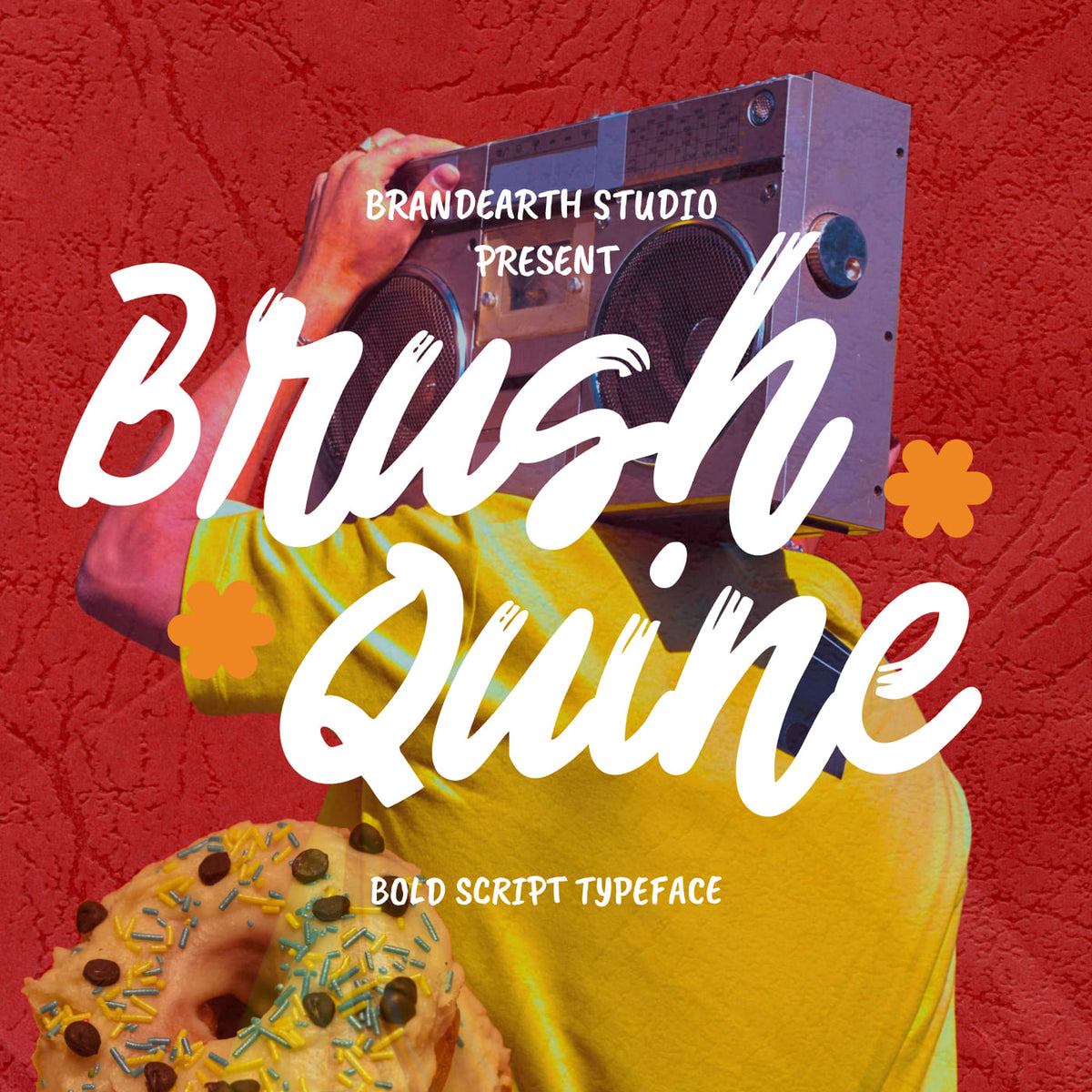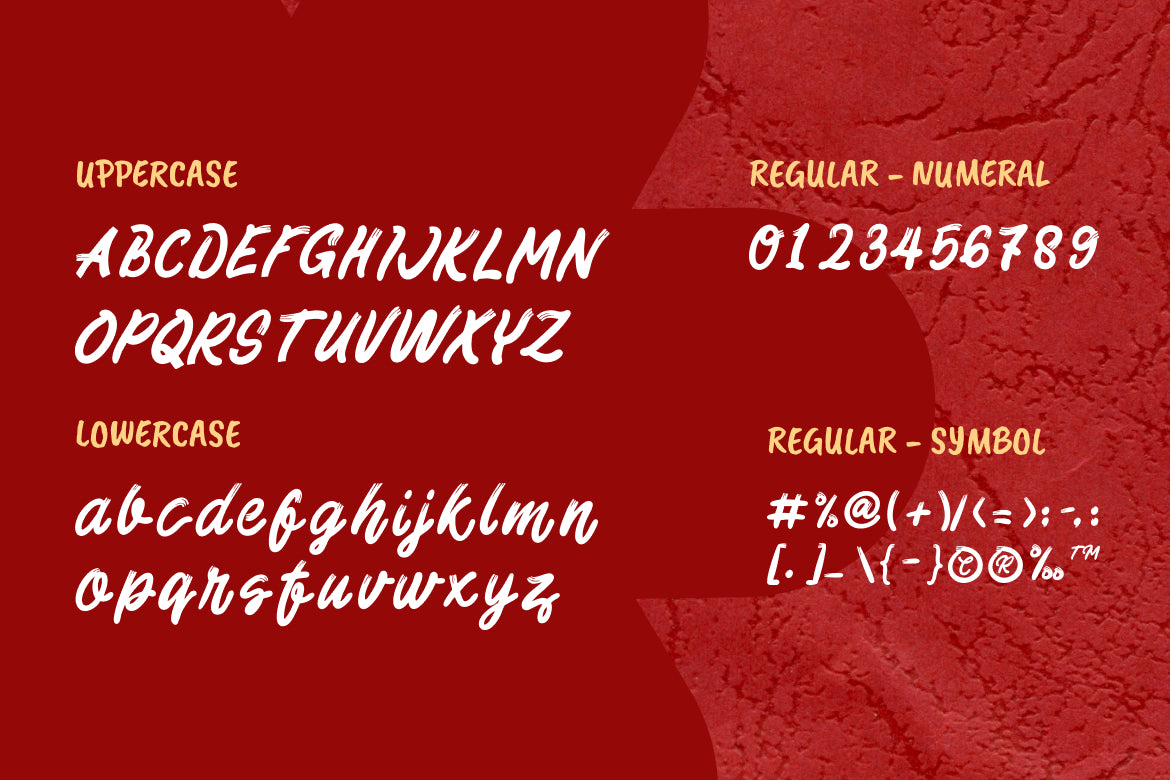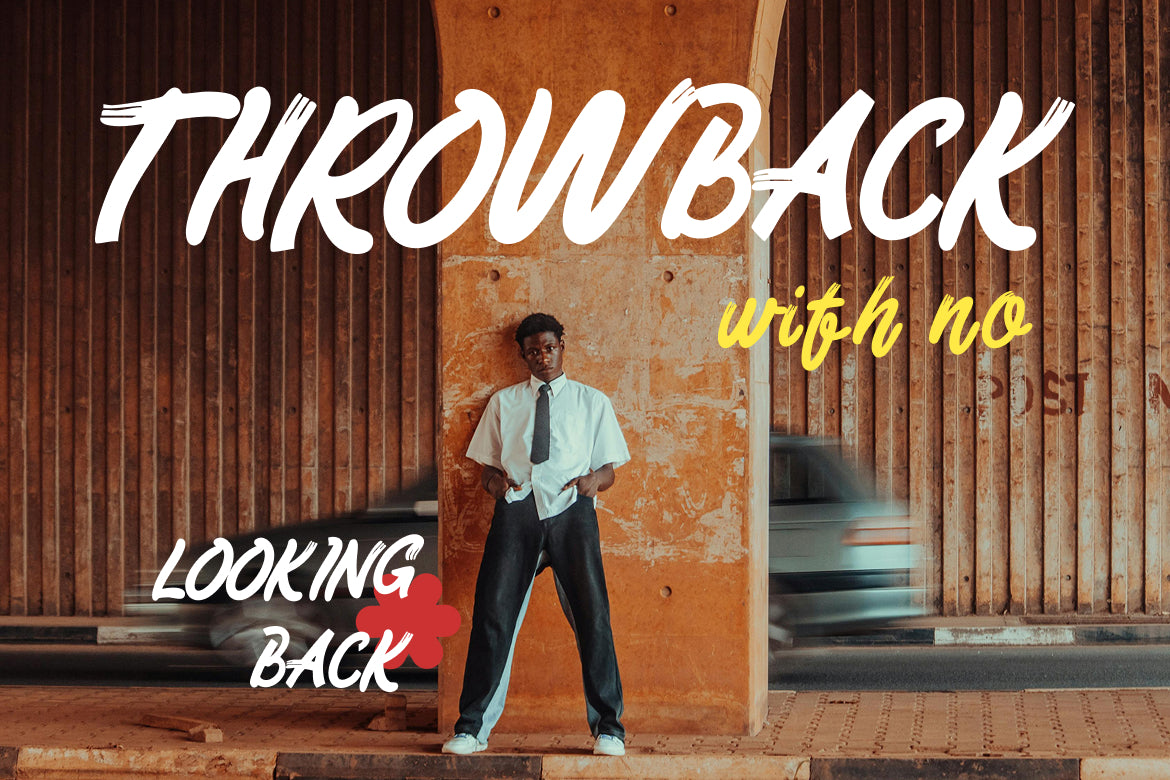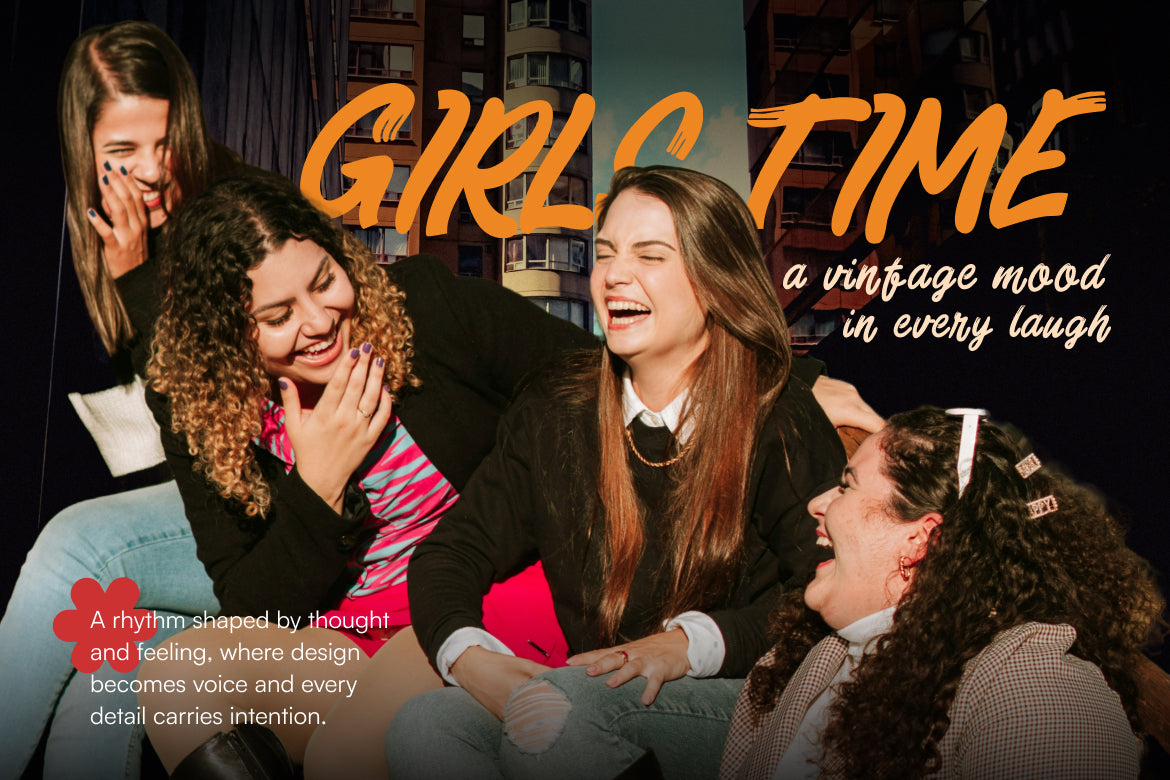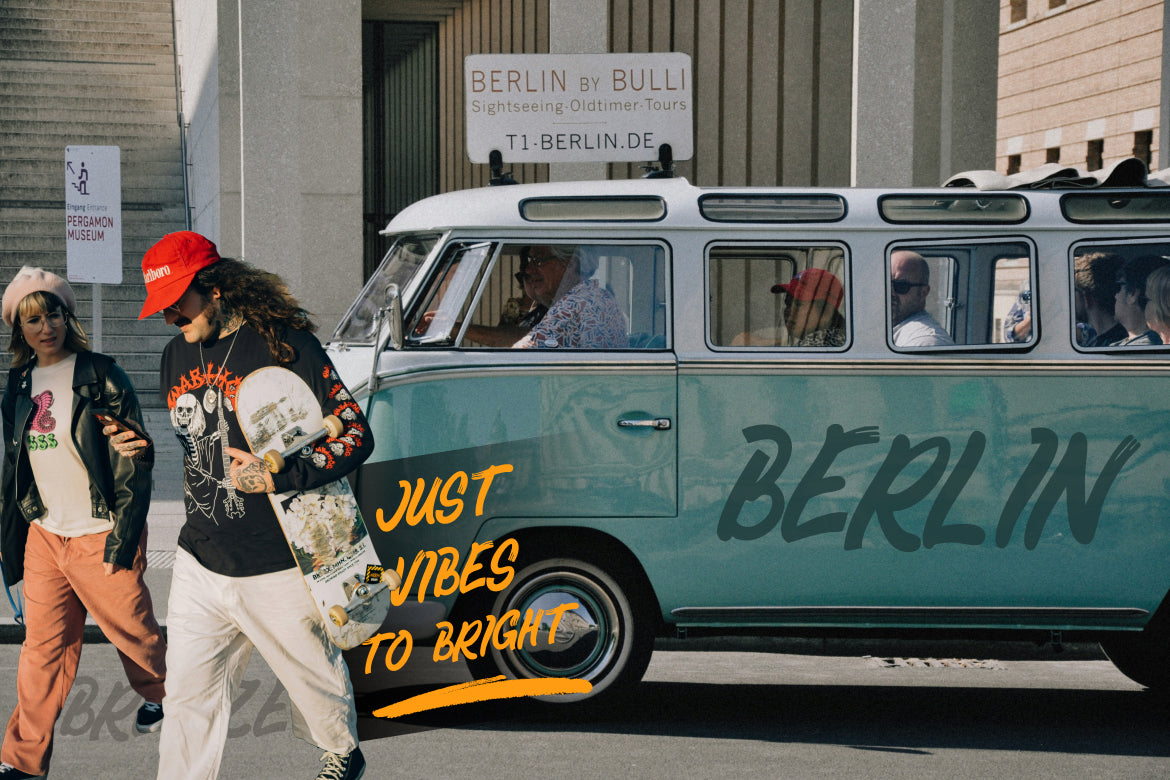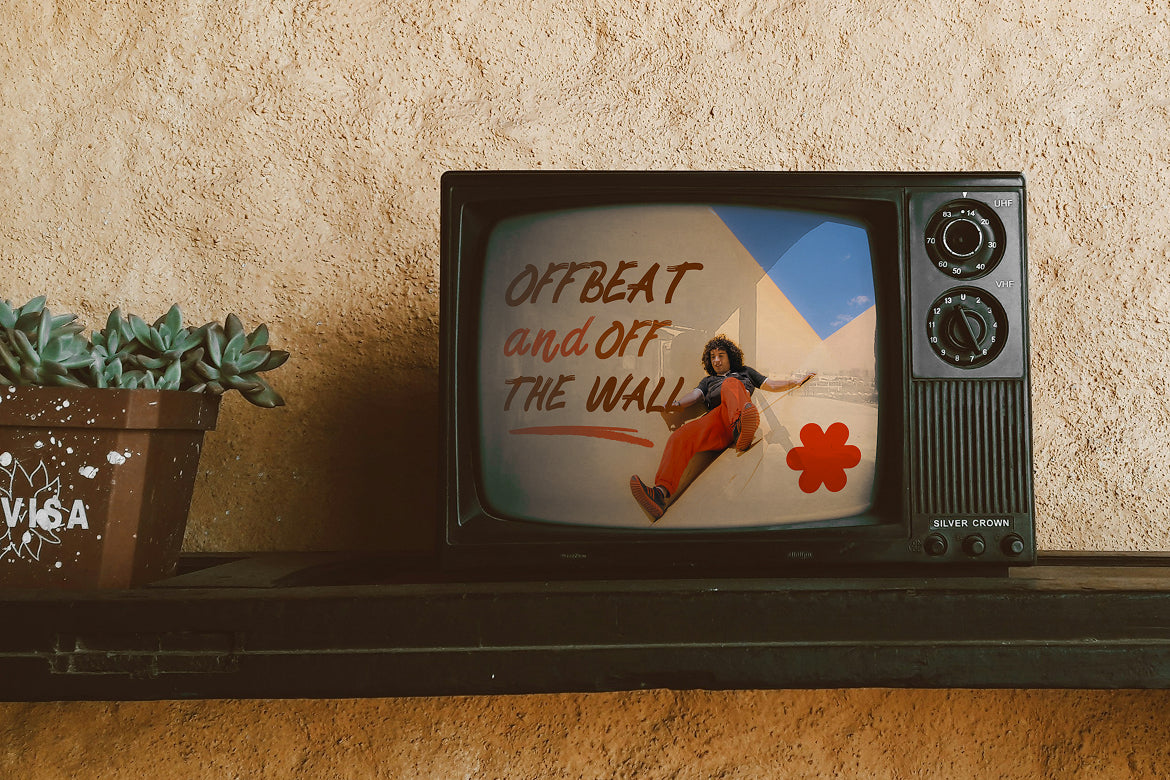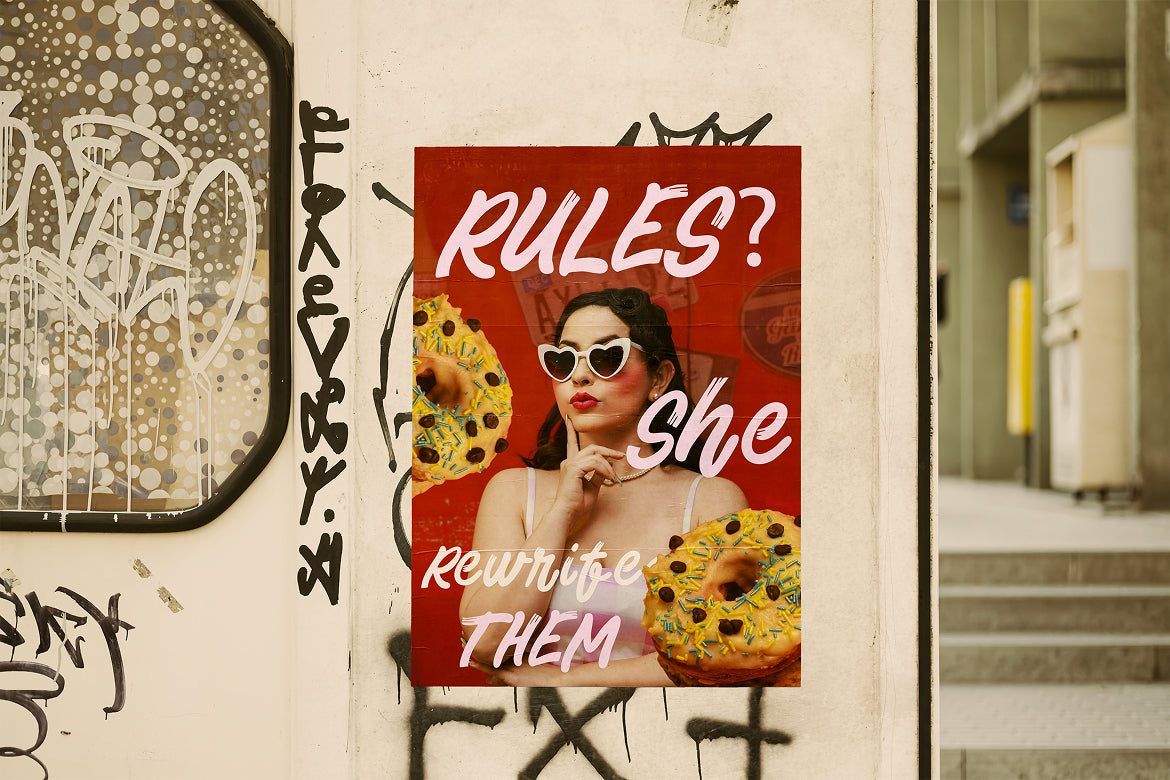
Brush Quine Bold Script Typeface
Brush Quine is a bold handwritten script typeface built around thick, energetic brush strokes and a naturally flowing letter rhythm. Its letterforms combine rounded curves, sweeping connections, tapered stroke endings, and small dry-brush details that create an authentic hand-painted appearance. The uneven stroke movement gives the characters a lively, spontaneous quality while the substantial weight keeps words highly visible in large display settings. It is especially effective for short phrases, brand names, headlines, and expressive lettering where a casual yet confident brush style is needed.
Brush Quine is well suited to projects that need a friendly, energetic, and handmade visual personality. The thick strokes make it particularly effective for food and beverage branding, apparel graphics, posters, social media artwork, packaging, stickers, greeting cards, and lifestyle campaigns. Use it for prominent names, short headlines, product titles, or featured phrases where the expressive brush character can become a major part of the design.
Brush Quine Bold Script Typeface is a handwritten brush-style font featuring thick strokes, rounded curves, and tapered stroke endings with dry-brush texture details. It includes uppercase and lowercase characters, numerals, and punctuation, and is available in TTF, OTF, and WOFF formats.